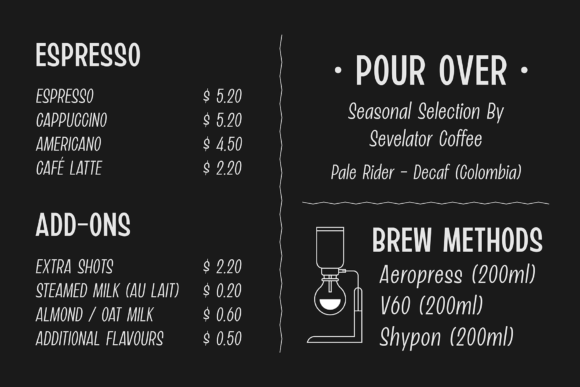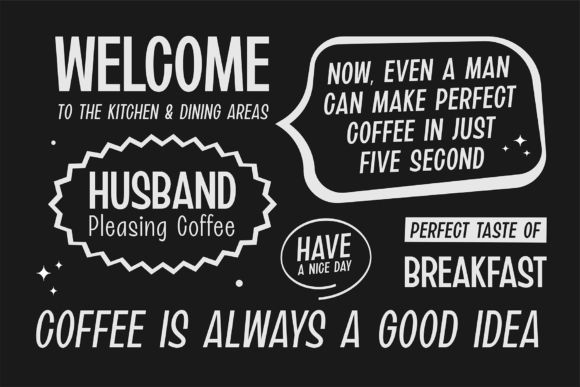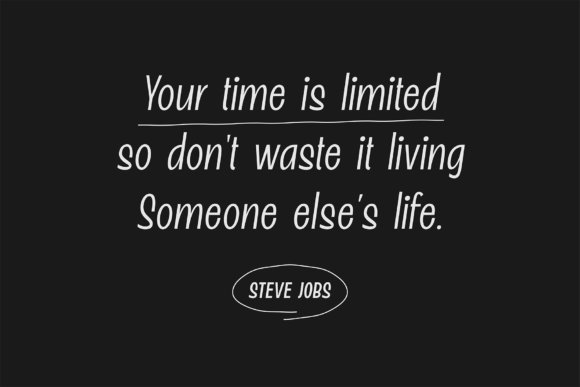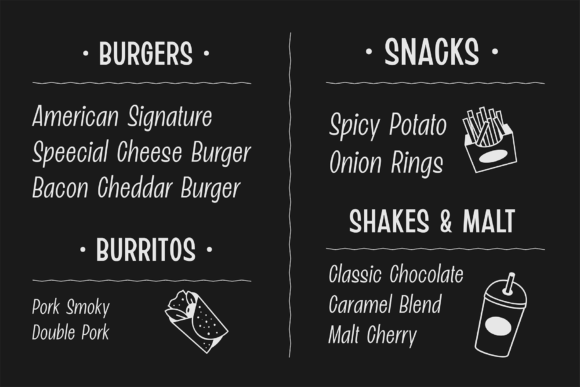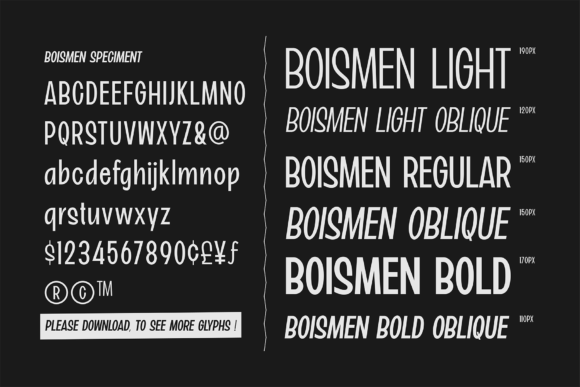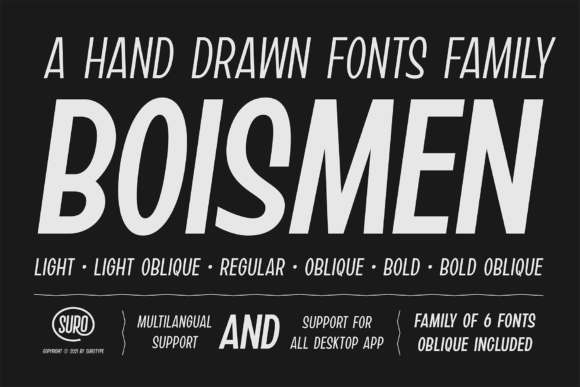
Introducing Boismen Font: The Ultimate Display Font for Designers and Crafters
Are you tired of using the same old fonts for your designs and crafts? Look no further! Boismen Font is here to revolutionize your creative projects with its bold and thick lettered style. Whether you’re a designer, crafter, or simply a DIY enthusiast, this font is sure to become your new favorite go-to font for all occasions.
What is Boismen Font?
Boismen Font is a display font that boasts a unique and striking appearance. Its bold and thick letters make it perfect for creating eye-catching designs, from crafts and digital designs to presentations and greeting cards. The font’s versatility and flexibility make it an excellent addition to any designer’s or crafter’s toolkit.
Key Features of Boismen Font
• Bold and Thick Letters: Boismen Font features bold and thick letters that are sure to grab attention.
• Versatile: This font is perfect for a wide range of projects, from crafts and digital designs to presentations and greeting cards.
• Easy to Read: Despite its bold style, Boismen Font is easy to read, making it perfect for designs that require a clear and concise message.
• High-Quality: Boismen Font is a high-quality font that is designed to produce crisp and clear results, even at large sizes.
Uses of Boismen Font
Boismen Font is an incredibly versatile font that can be used for a wide range of projects, including:
• Crafts: Use Boismen Font to add a personal touch to your craft projects, such as scrapbooking, card making, and DIY decorations.
• Digital Design: Boismen Font is perfect for digital designers who want to create bold and eye-catching designs for social media, websites, and more.
• Presentations: Add a professional touch to your presentations with Boismen Font, which is sure to grab your audience’s attention.
• Greeting Cards: Create personalized and stylish greeting cards with Boismen Font, which is perfect for special occasions.
Why Choose Boismen Font?
With so many fonts available, why choose Boismen Font? Here are just a few reasons why designers and crafters love this font:
• Unique Style: Boismen Font has a unique and striking style that sets it apart from other fonts.
• High-Quality: Boismen Font is a high-quality font that produces crisp and clear results.
• Versatile: This font can be used for a wide range of projects, making it an excellent addition to any designer’s or crafter’s toolkit.
Tips for Using Boismen Font
Here are a few tips for getting the most out of Boismen Font:
• Experiment with Sizes: Boismen Font looks great at a variety of sizes, so experiment to find the perfect size for your project.
• Pair with Other Fonts: Boismen Font pairs well with other fonts, so try pairing it with a script font or a sans-serif font for added interest.
• Use for Headings: Boismen Font is perfect for headings and titles, so use it to add a bold and eye-catching touch to your designs.